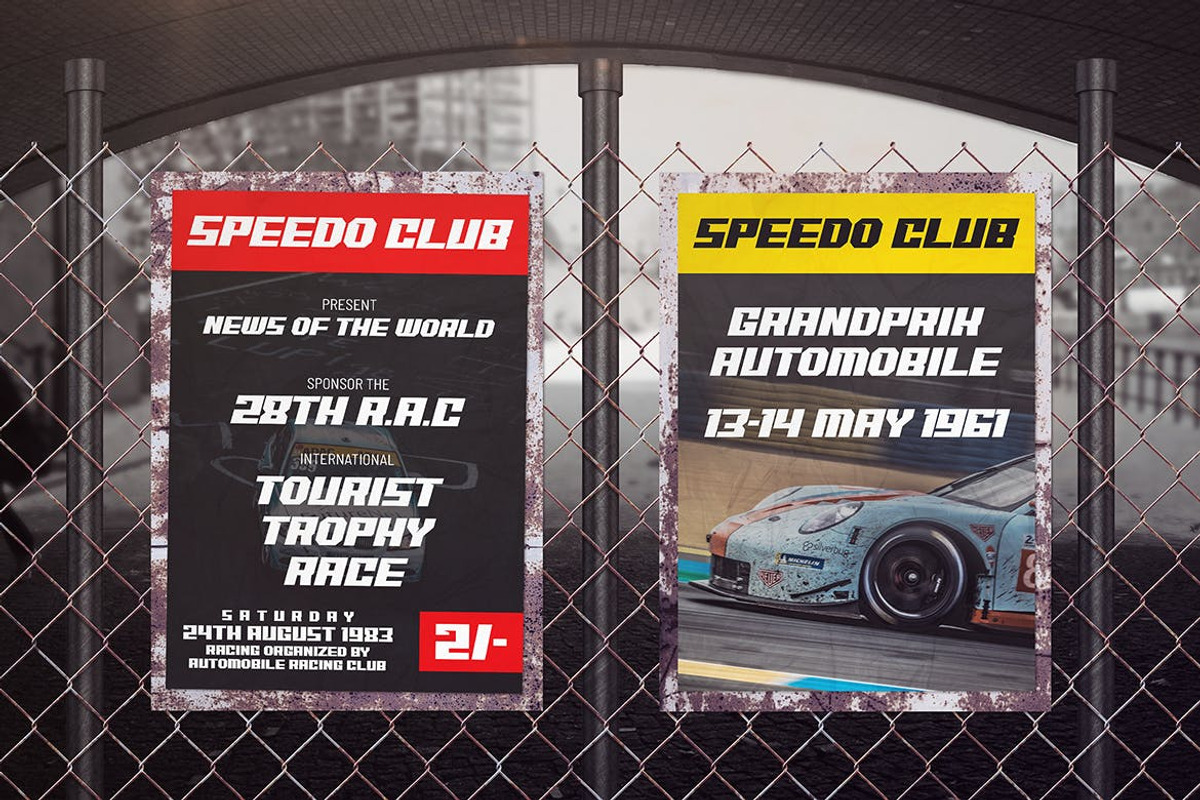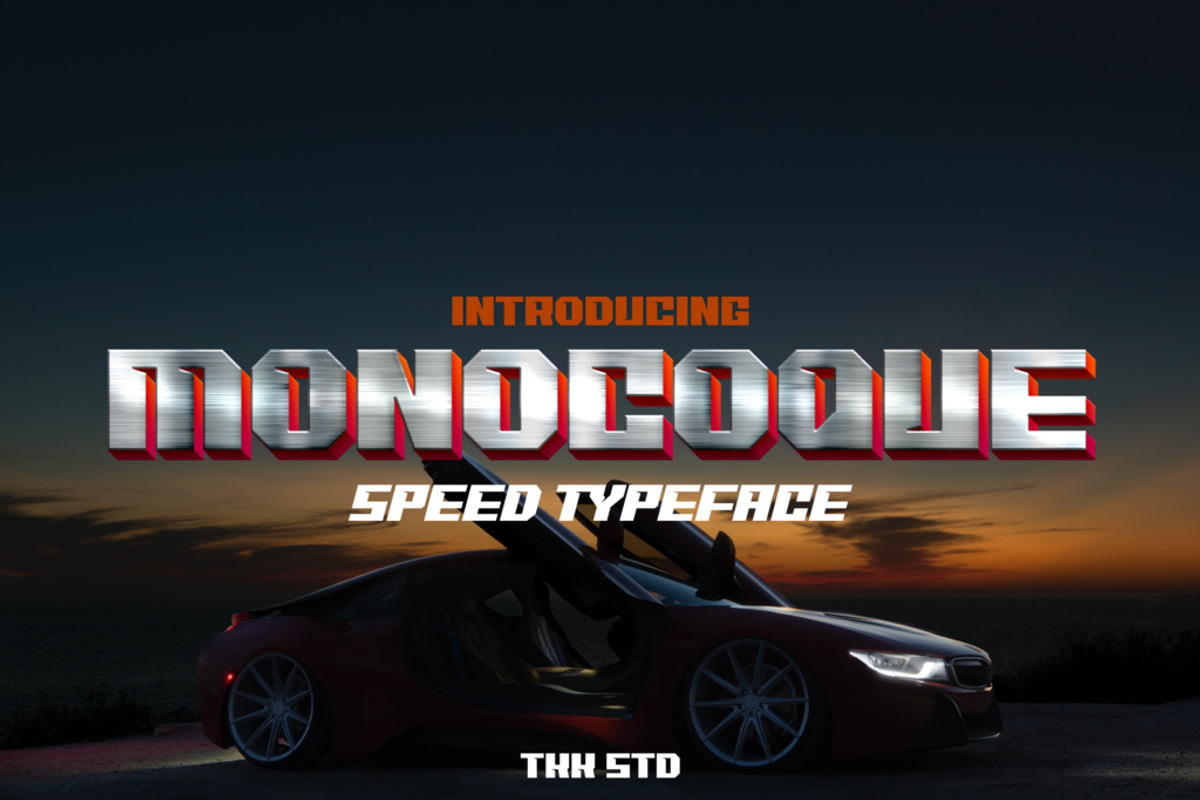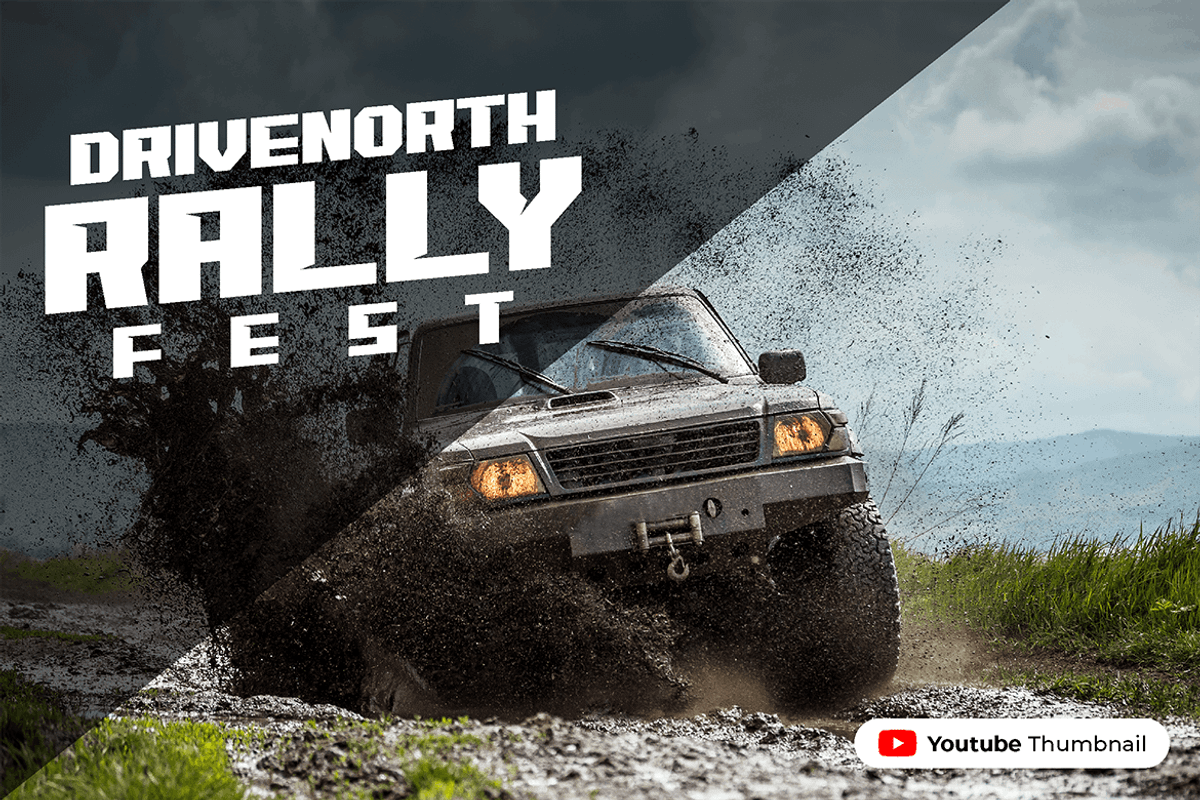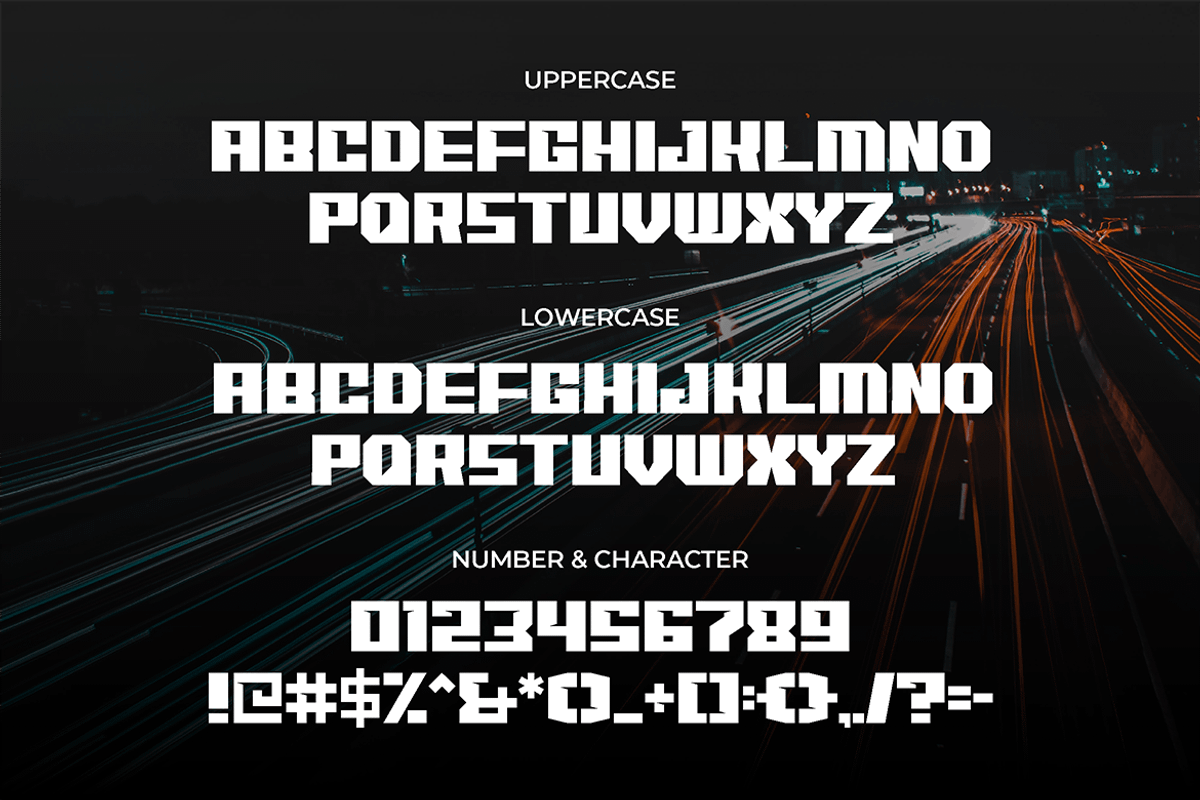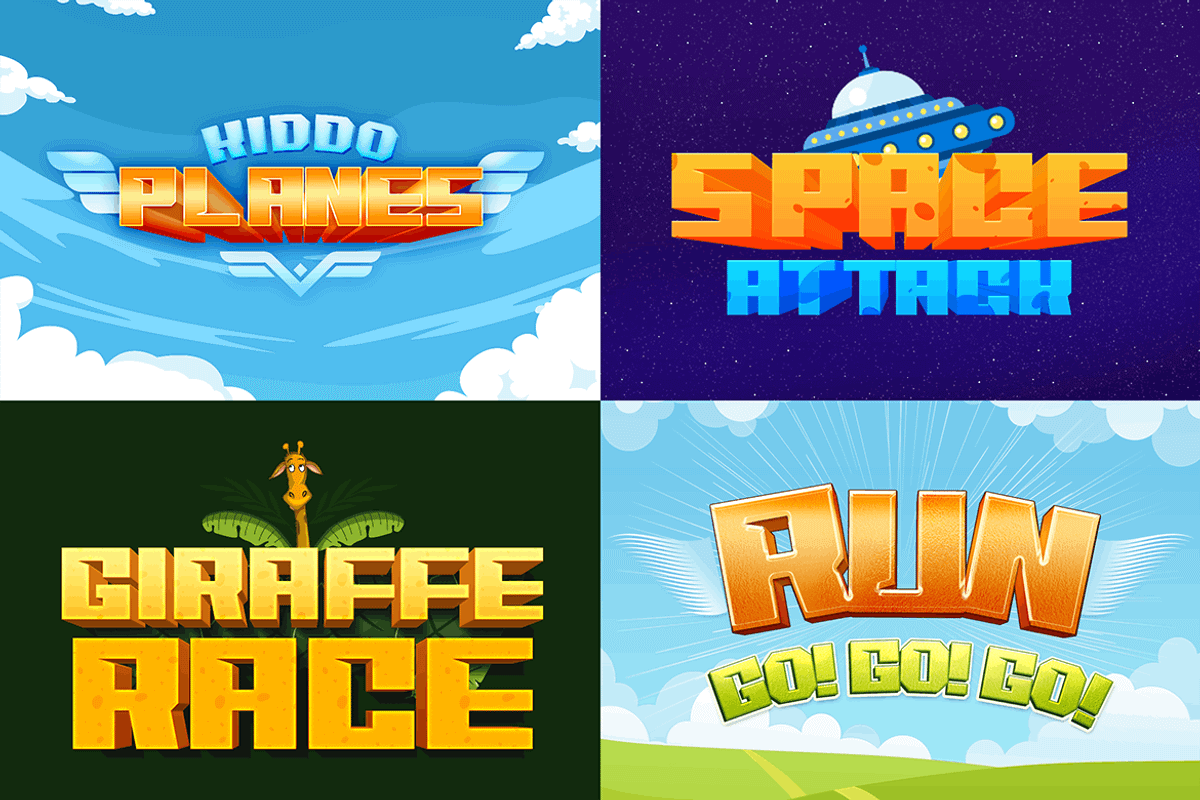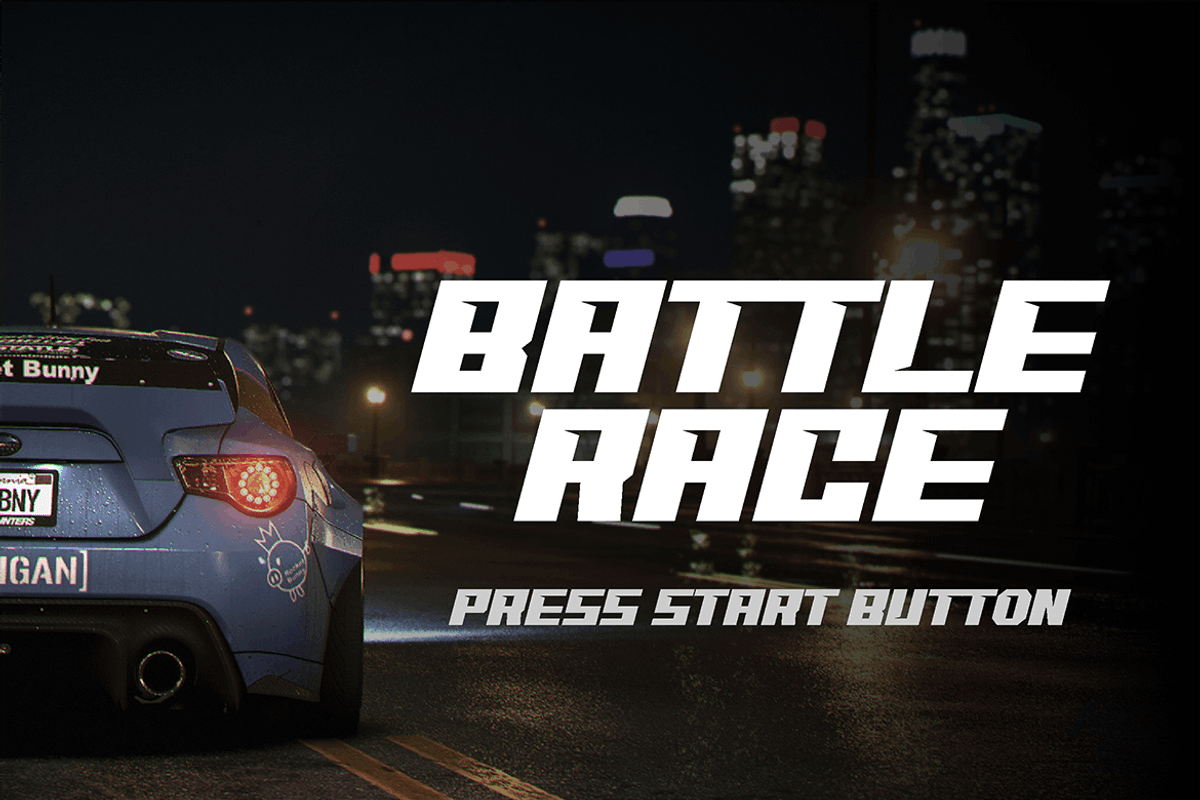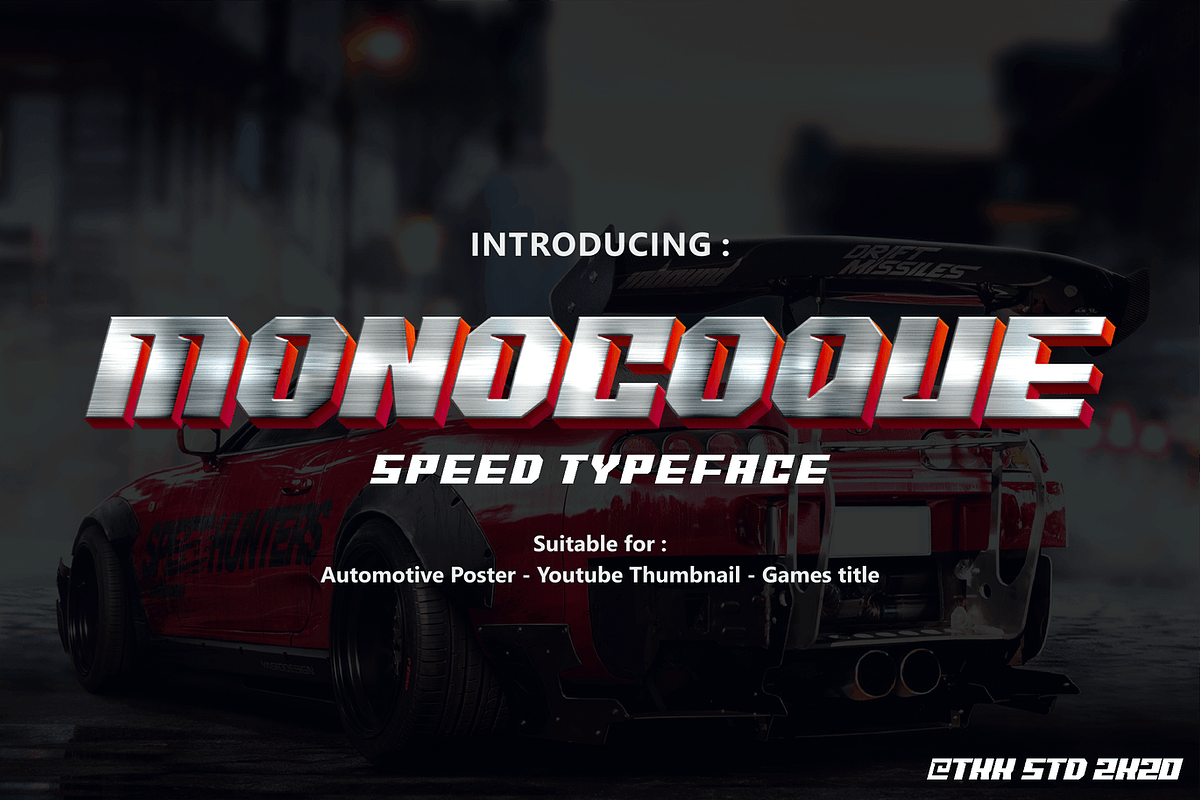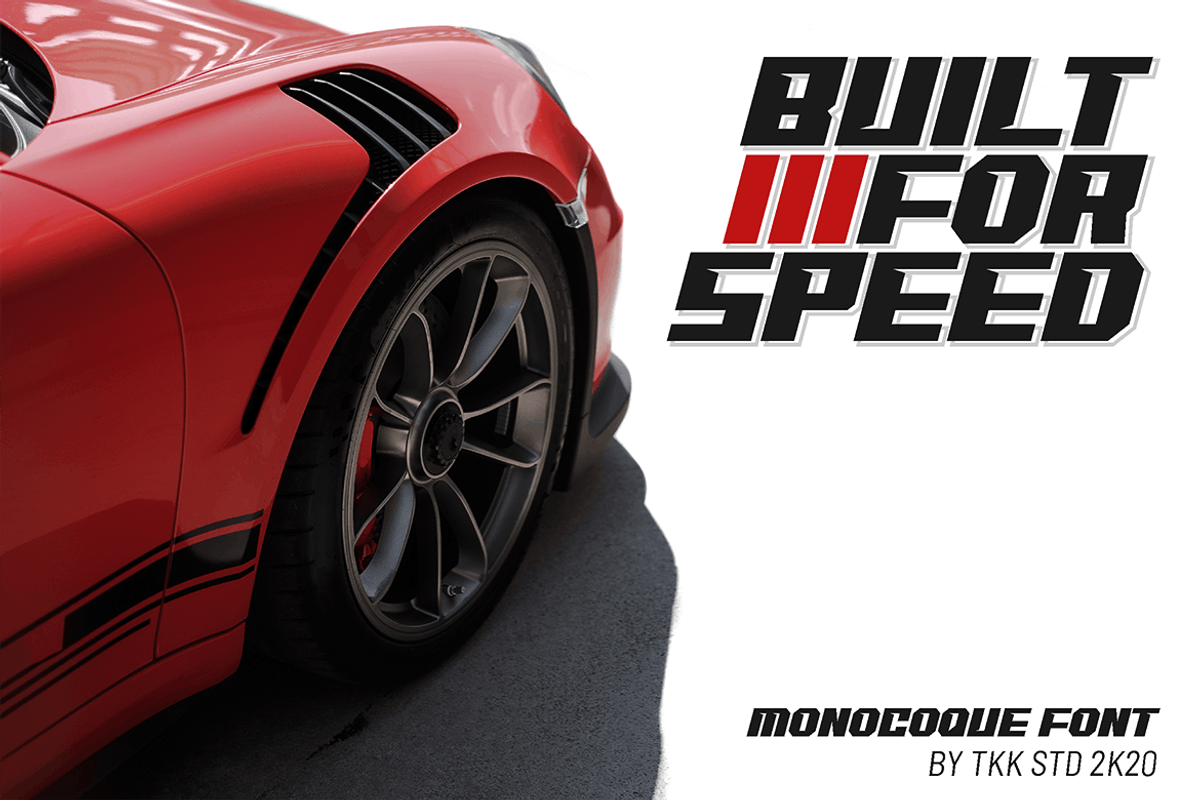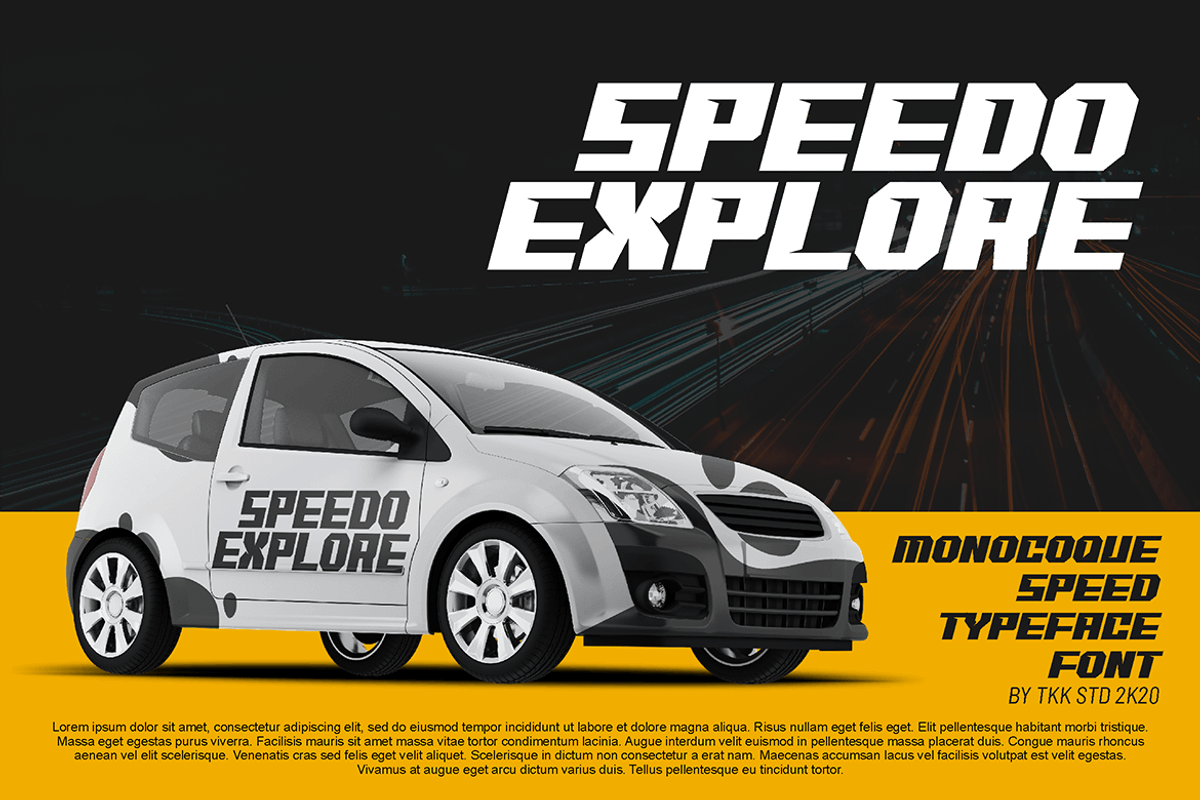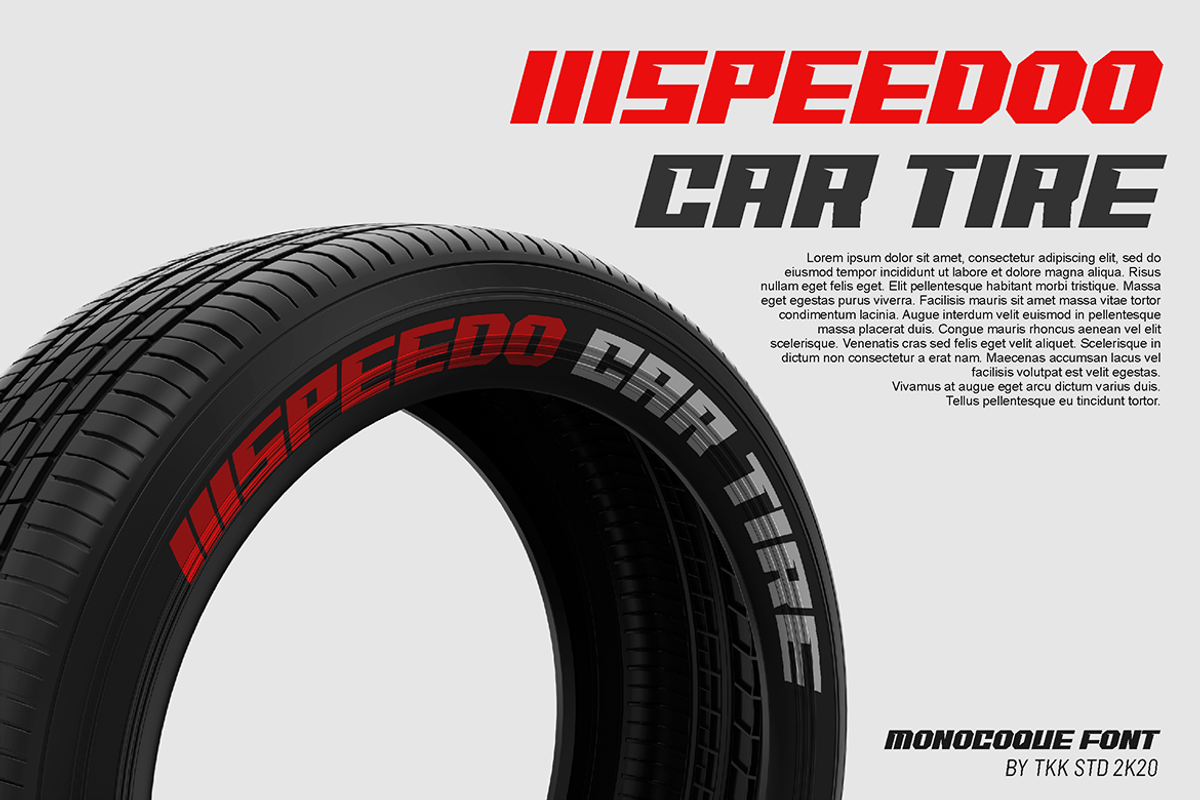
MONOCOQUE - Gaming Font
MONOCOQUE gaming font having a blocky shape with a powerful, strong sharp corner, and a cut out on the inner will emphasize the racing spirit inside your designs. Suit perfectly for Online Games, poster, movie title, fast food menu, magazine, youtube covers, youtube thumbnails, social media page covers and so on… Happy designing. Whatís Included :